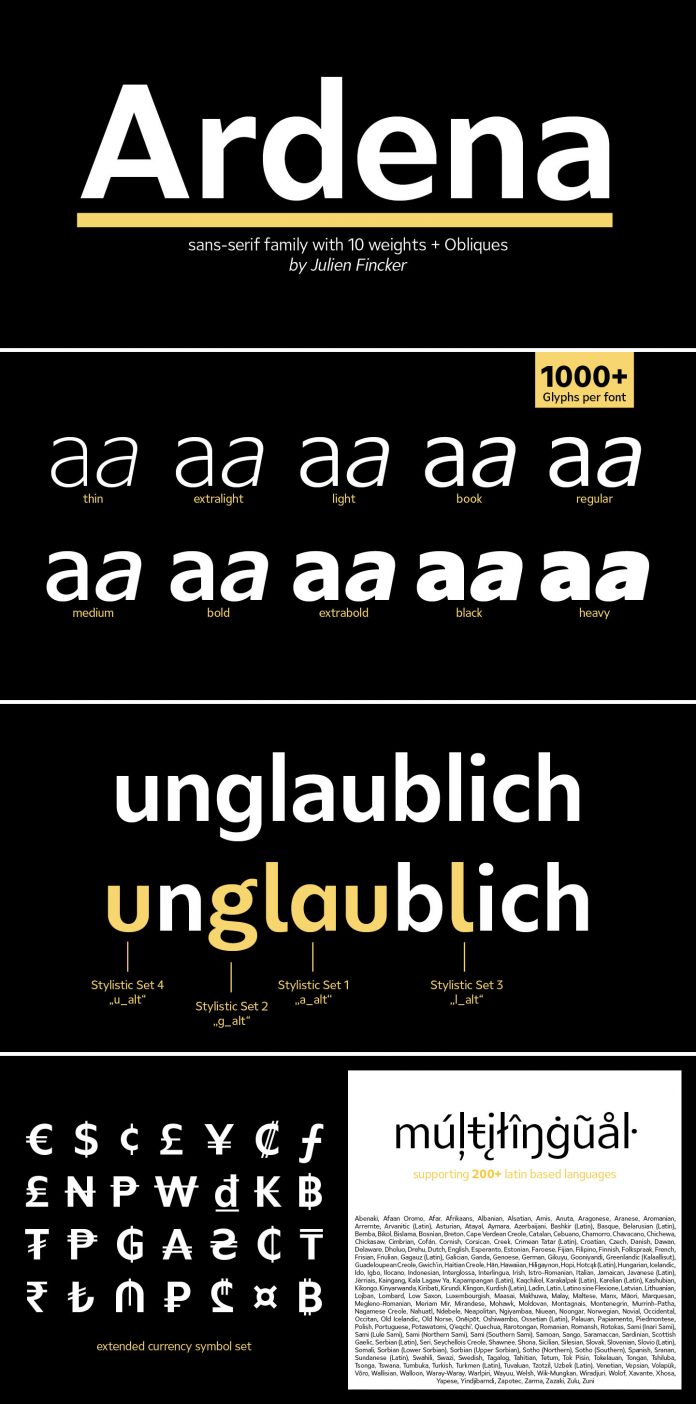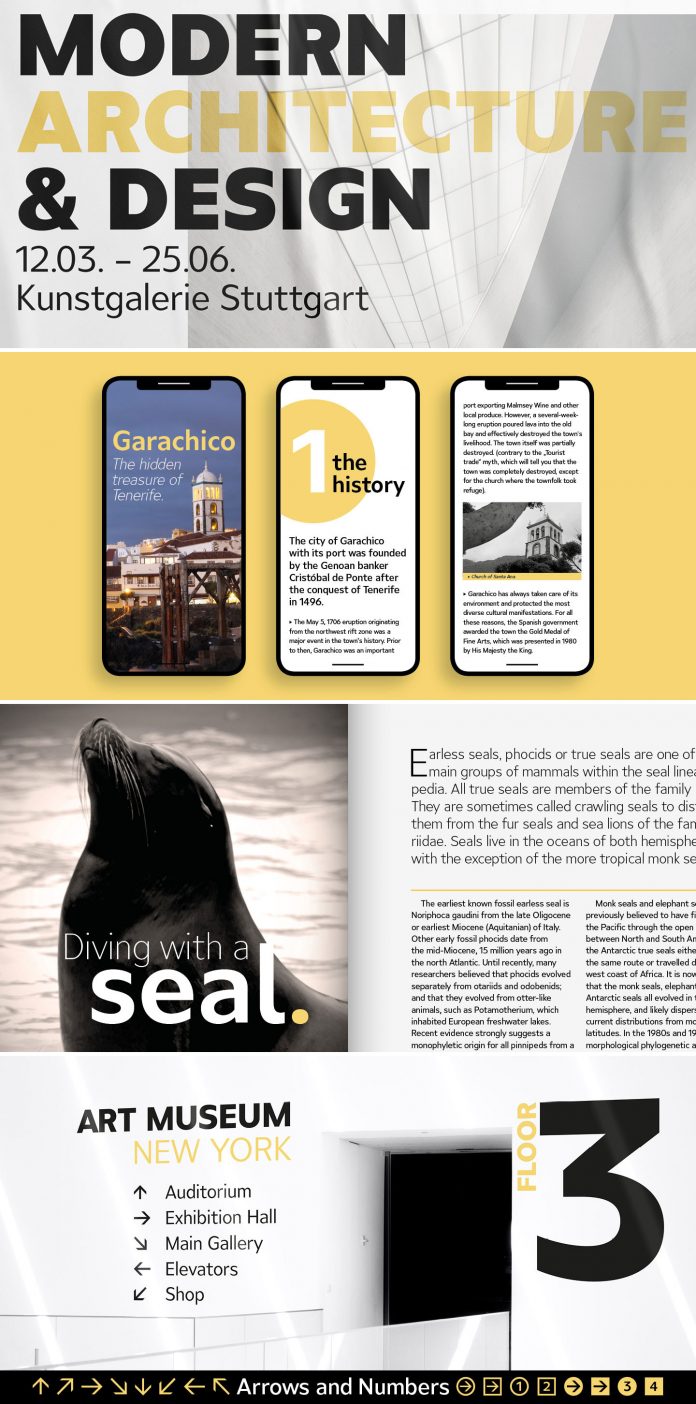
Ardena, a modern sans-serif font family created and published by Julien Fincker.
Just a few days ago, type designer Julien Fincker published his latest font family, Ardena. From thin to heavy plus matching italics, the modern sans-serif features a total of 20 styles. The Ardena font family combines neutral and clear characteristics with open, rounded forms and vertical terminals to convey a pleasant but confident style. Equipped with more than 1064 characters, Ardena supports over 200 Latin-based languages. Furthermore, it comes with an extended set of currency symbols, an extensive range of arrows and numbers as well as plenty of OpenType features and alternate characters as stylistic sets, small caps, and automatic fractions.
Whether print or on screen, Ardena’s thinner and thicker weights are ideal for striking headlines, while its middle weights are well suited for a range of typographic challenges and body text. The wide range of arrows and numbers is perfectly suited for use in orientation and guidance systems. These various designs of arrows and numbers can also be simply “written” without first having to select them in a glyph palette. Just click on the following link or have a look at the images below to learn more about this workhorse font family.